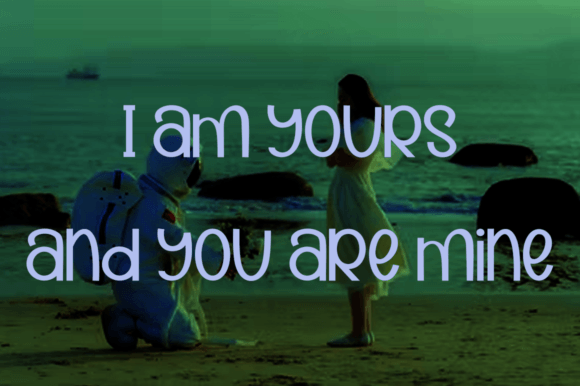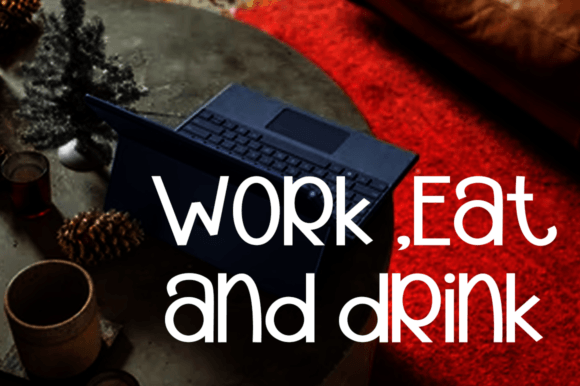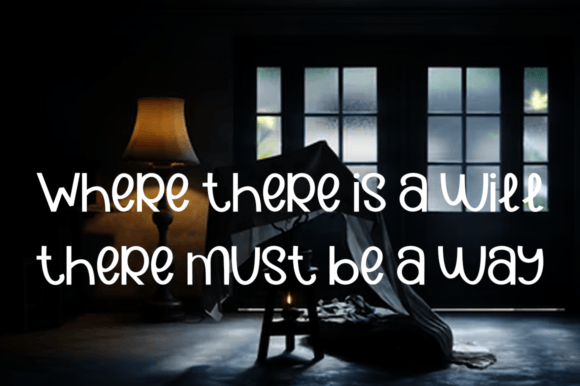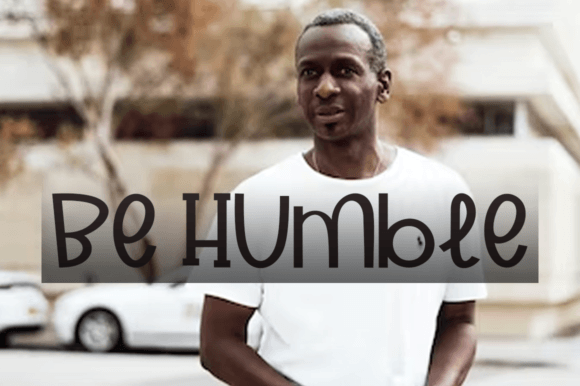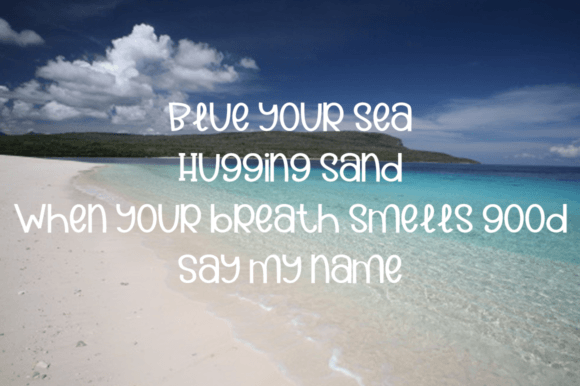
Bodicx Font: The Modern and Fun Display Font for Your Designs
Are you looking for a font that can add a modern and casual touch to your designs? Look no further than Bodicx Font! This modern and fun display font is perfect for designers and crafters who want to create eye-catching and engaging content. In this article, we’ll take a closer look at Bodicx Font, its features, and how you can use it to elevate your designs.
What is Bodicx Font?
Bodicx Font is a modern and fun display font designed to add a touch of playfulness and sophistication to your designs. Its clean and sleek lines make it perfect for a wide range of applications, from branding and advertising to packaging and digital media. Whether you’re creating a logo, poster, or social media graphic, Bodicx Font is the perfect choice.
Key Features of Bodicx Font
- Modern and Fun Design: Bodicx Font features a unique and modern design that’s perfect for creating eye-catching headlines and titles.
- Clean and Sleek Lines: The font’s clean and sleek lines make it easy to read and perfect for a wide range of applications.
- Highly Versatile: Bodicx Font is highly versatile and can be used for a wide range of projects, from branding and advertising to packaging and digital media.
- Easily Customizable: The font is easily customizable, allowing you to adjust the size, color, and style to fit your design needs.
Benefits of Using Bodicx Font
So, why should you use Bodicx Font in your designs? Here are just a few benefits:
- Adds a Modern and Casual Touch: Bodicx Font adds a modern and casual touch to your designs, making them perfect for brands and businesses that want to appear youthful and approachable.
- Improves Readability: The font’s clean and sleek lines make it easy to read, even at small sizes.
- Increases Engagement: The modern and fun design of Bodicx Font can help increase engagement and attention-grabbing, making it perfect for headlines and titles.
How to Use Bodicx Font in Your Designs
Using Bodicx Font in your designs is easy! Here are a few tips to get you started:
- Pair it with Other Fonts: Bodicx Font pairs well with other fonts, including serif and sans-serif fonts.
- Use it for Headlines and Titles: The font is perfect for headlines and titles, where you want to grab attention and make a statement.
- Experiment with Different Colors and Sizes: Don’t be afraid to experiment with different colors and sizes to find the perfect combination for your design.
- Use it for Branding and Advertising: Bodicx Font is perfect for branding and advertising, where you want to create a modern and youthful image.
In conclusion, Bodicx Font is a modern and fun display font that’s perfect for designers and crafters who want to add a touch of playfulness and sophistication to their designs. With its clean and sleek lines, highly versatile design, and easily customizable features, Bodicx Font is the perfect choice for a wide range of applications. Whether you’re creating a logo, poster, or social media graphic, Bodicx Font is sure to elevate your designs and grab attention.